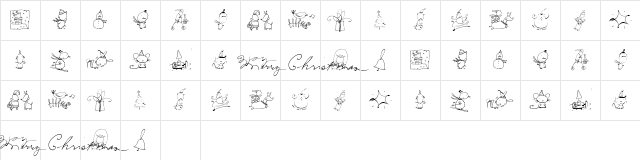
2Peas DW Ho Ho Ho Regular Free Font
2Peas DW Ho Ho Ho Regular
2Peas DW Ho Ho Ho Family
Design Context for 2Peas DW Ho Ho Ho
2Peas DW Ho Ho Ho is a composed and adaptable typeface that performs quietly and consistently across a wide range of design contexts.